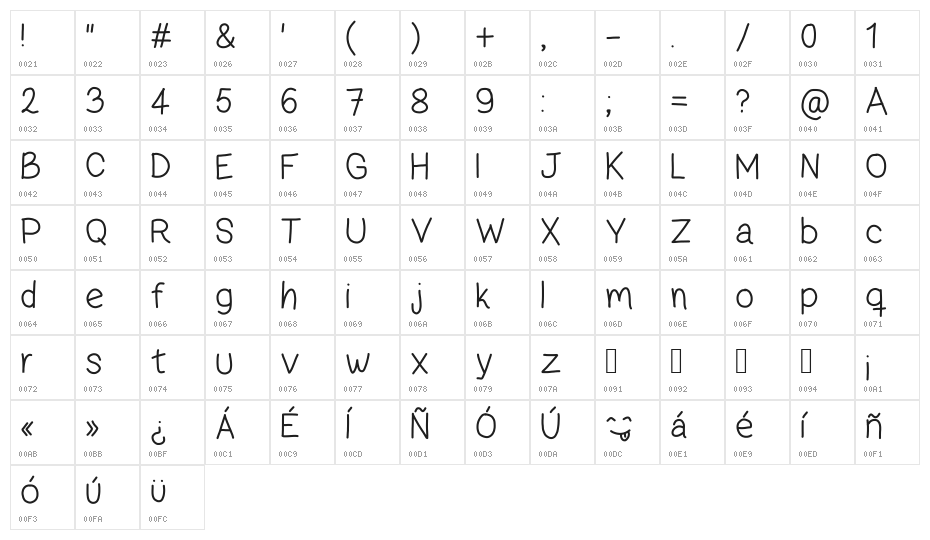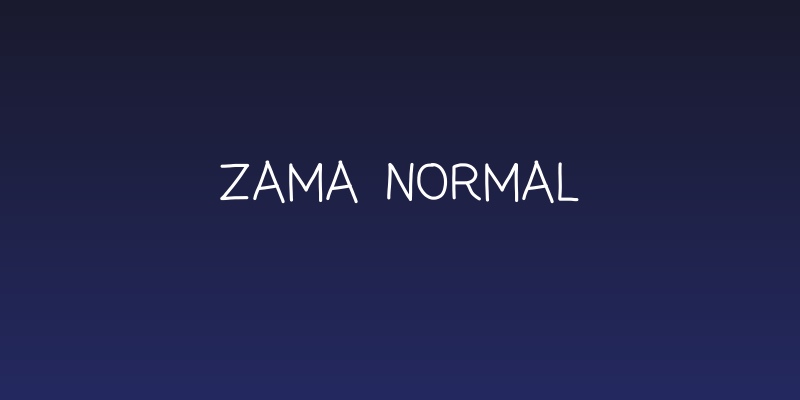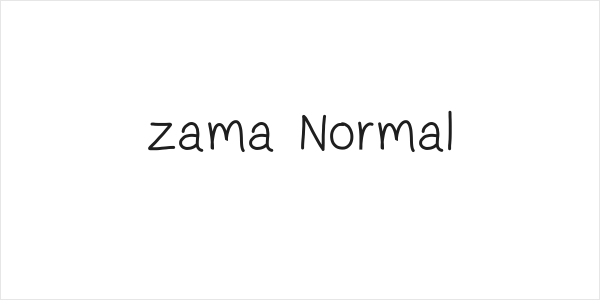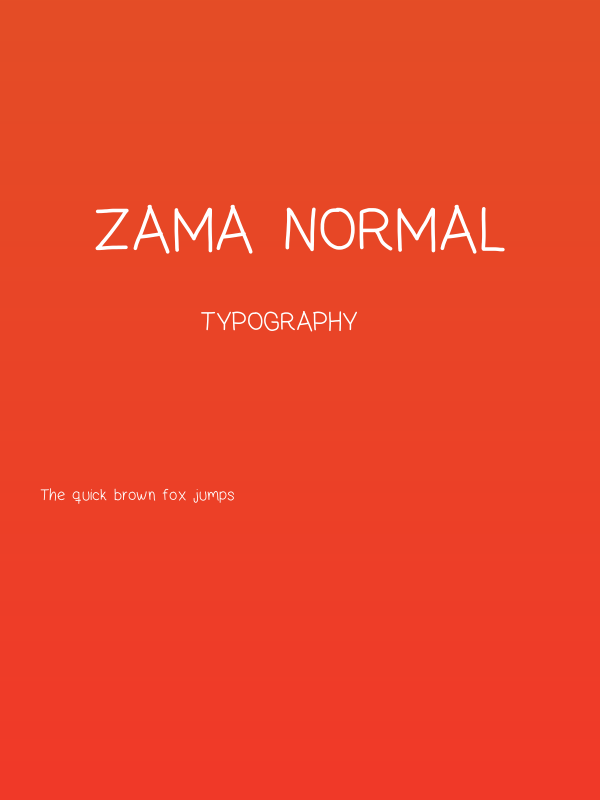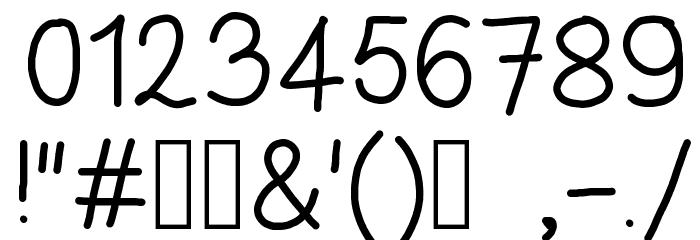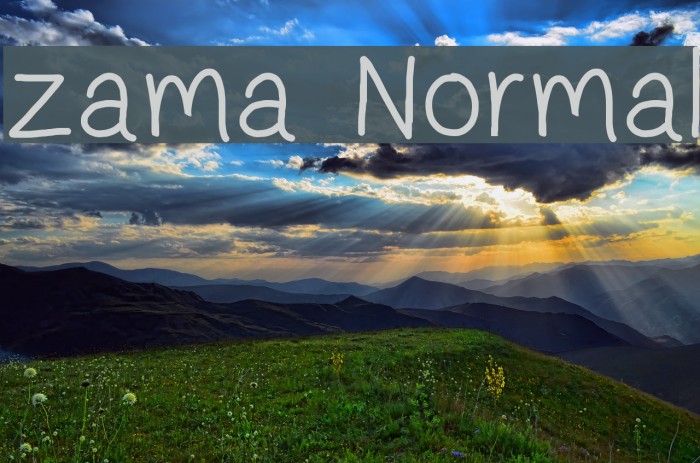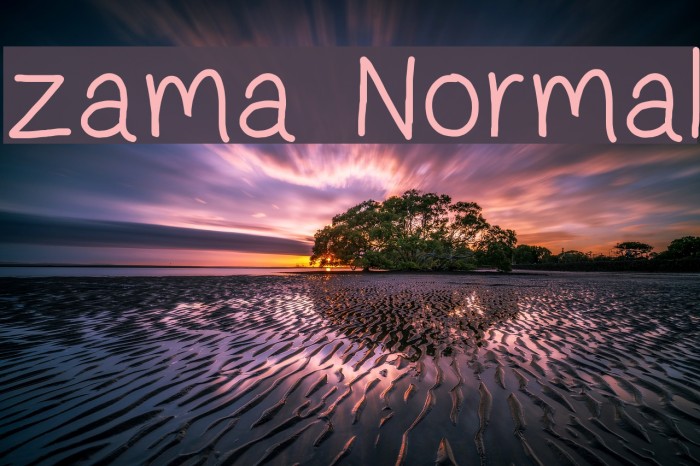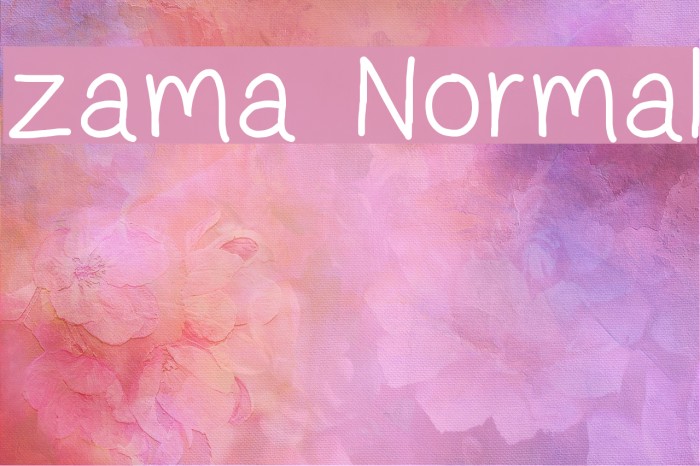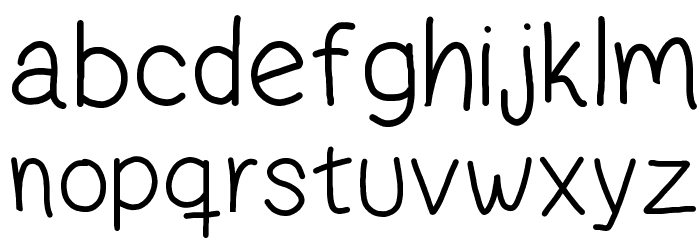
zama Normal Font
zama Normal Description
This font features a playful and informal handwritten style, characterized by its rounded and slightly irregular letterforms. The uppercase and lowercase letters maintain a consistent flow, with a casual and approachable appearance. The numerals and special characters follow the same design ethos, contributing to a cohesive look. Its simplicity and charm make it suitable for projects that require a friendly and personal touch. The strokes are even, with minimal contrast, giving it a clean and modern feel. The overall design is versatile, making it ideal for a variety of creative applications.
| Proposed Projects | Ideal for children's books, greeting cards, personal blogs, and informal branding. |